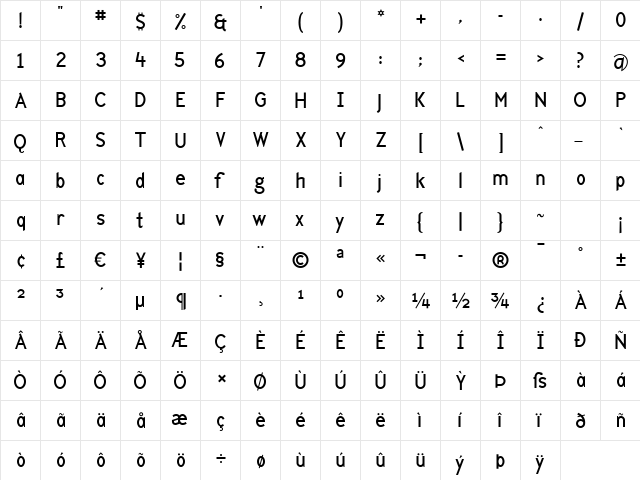
GfIndex-Book Book Font Preview
GfIndex-Book Book
Design Context for GfIndex-Book Typeface
GfIndex-Book takes a measured approach to typography — its balanced proportions and neutral character make it a reliable workhorse for both digital and print work.